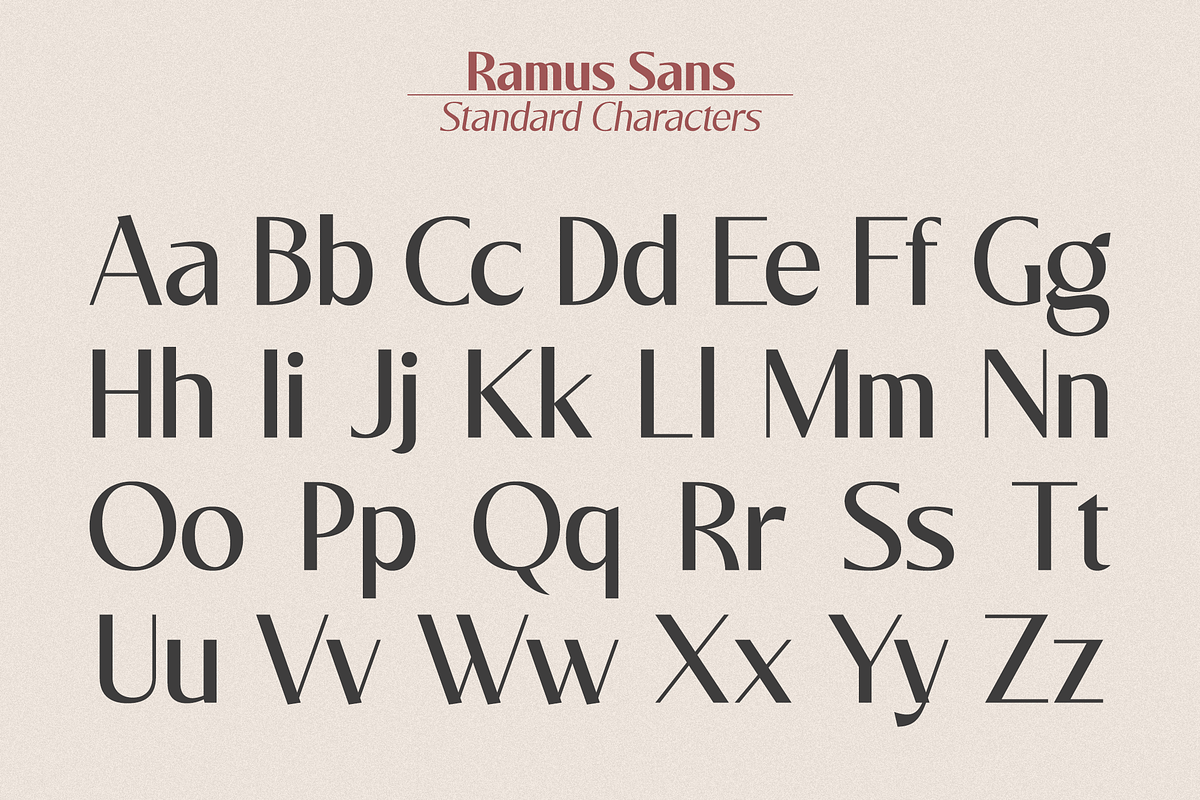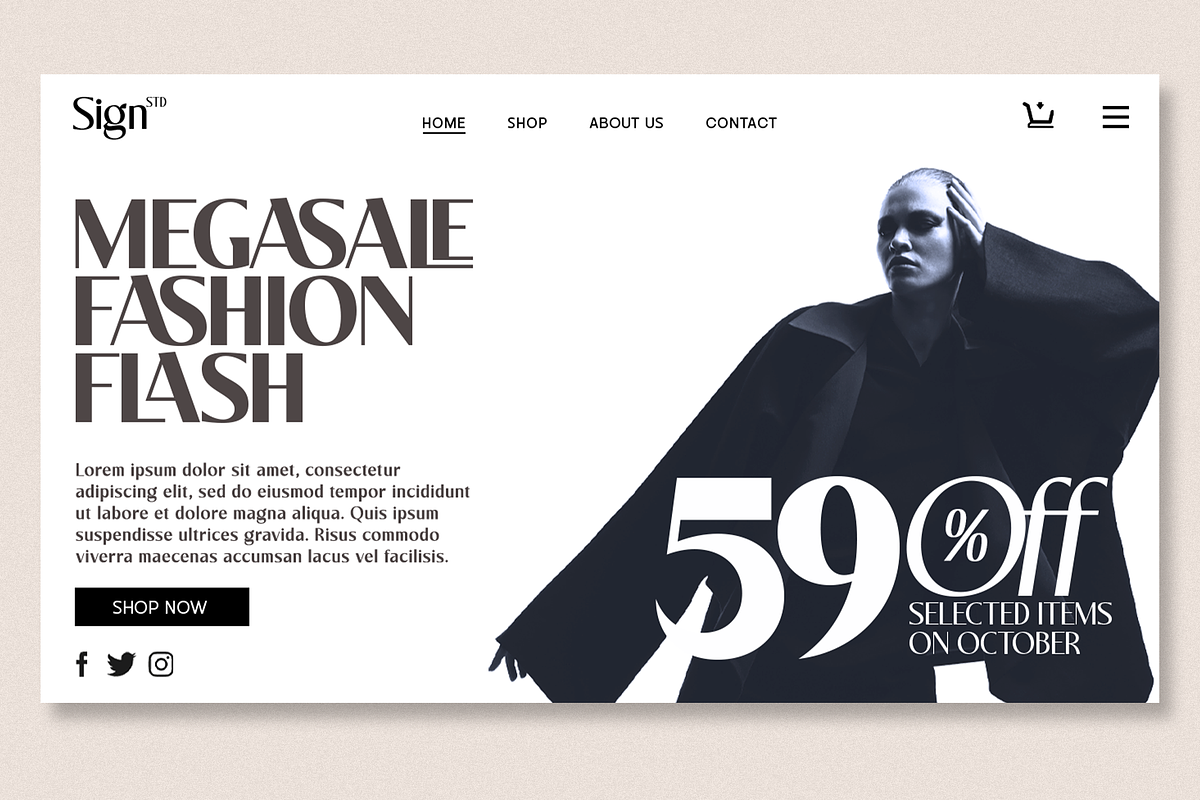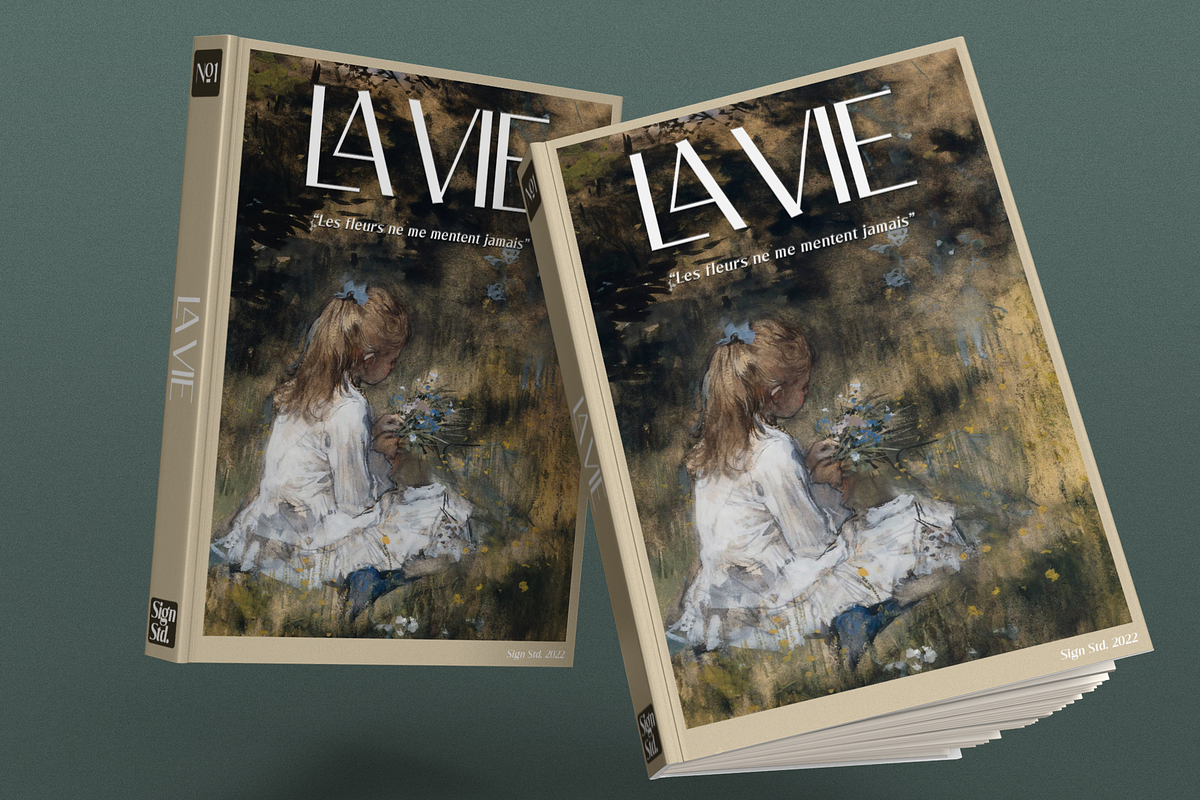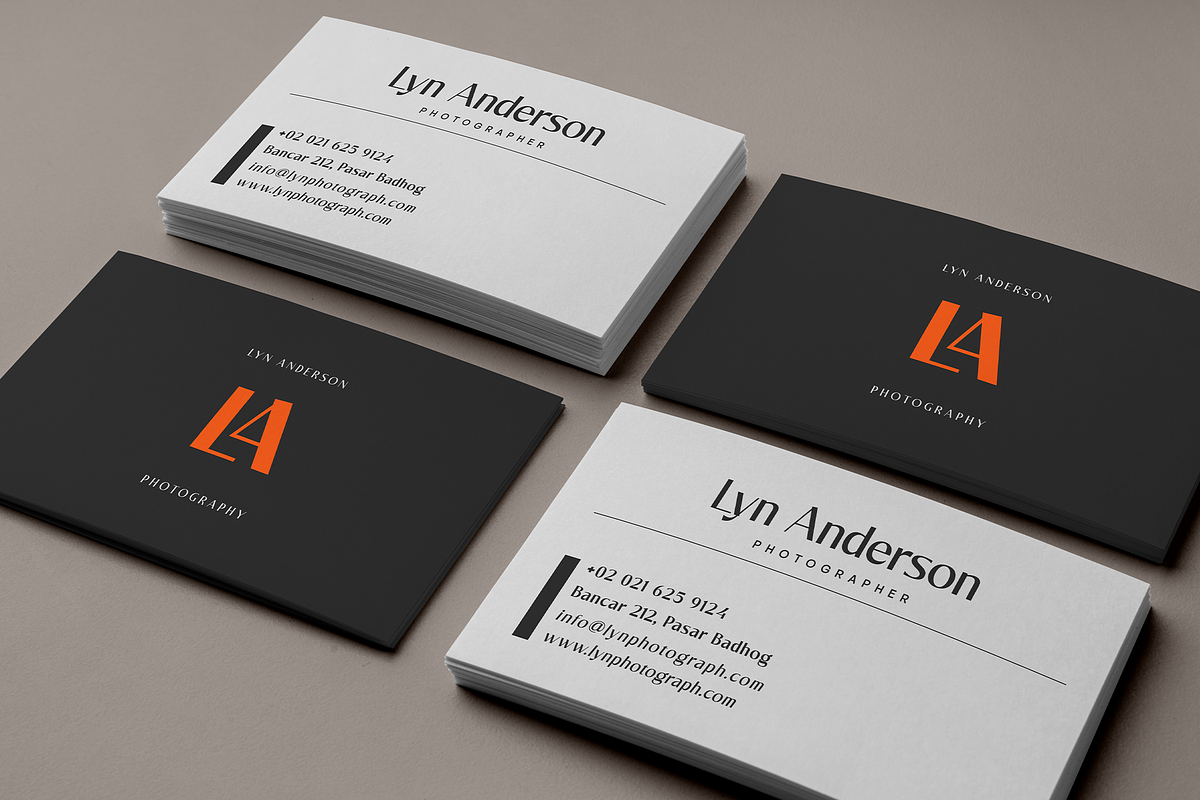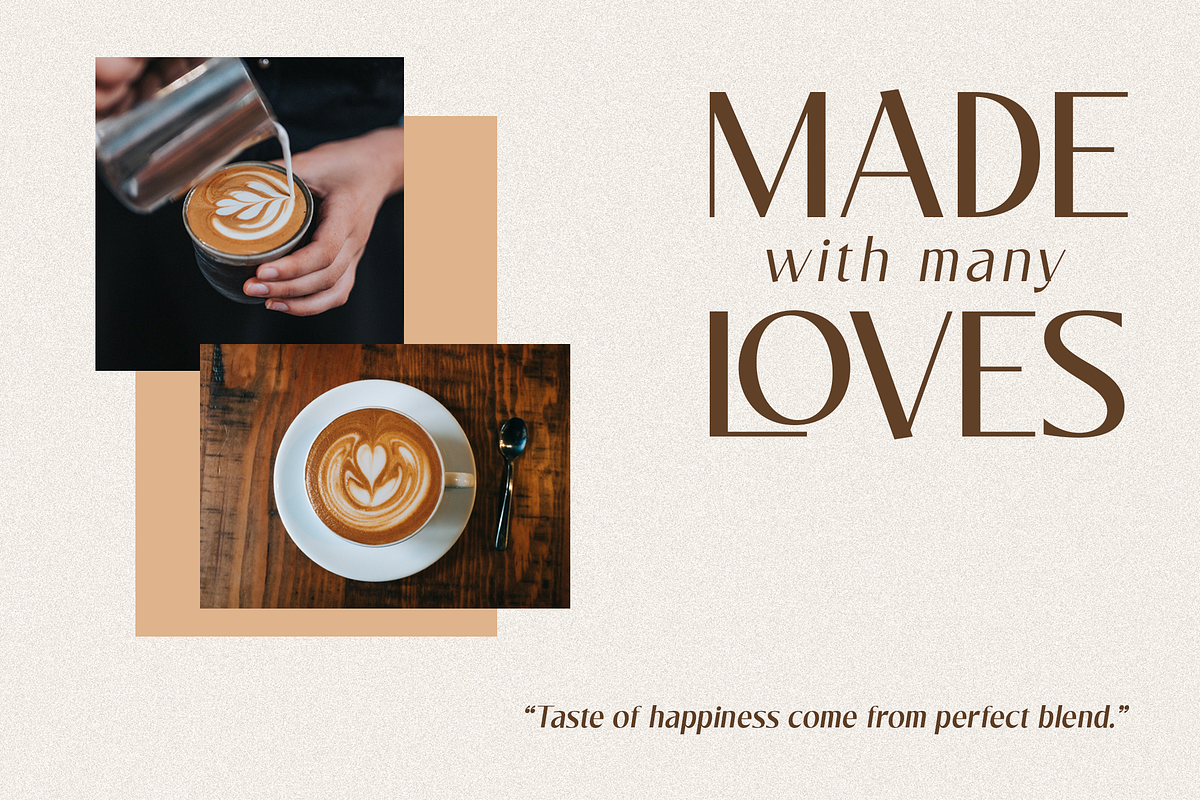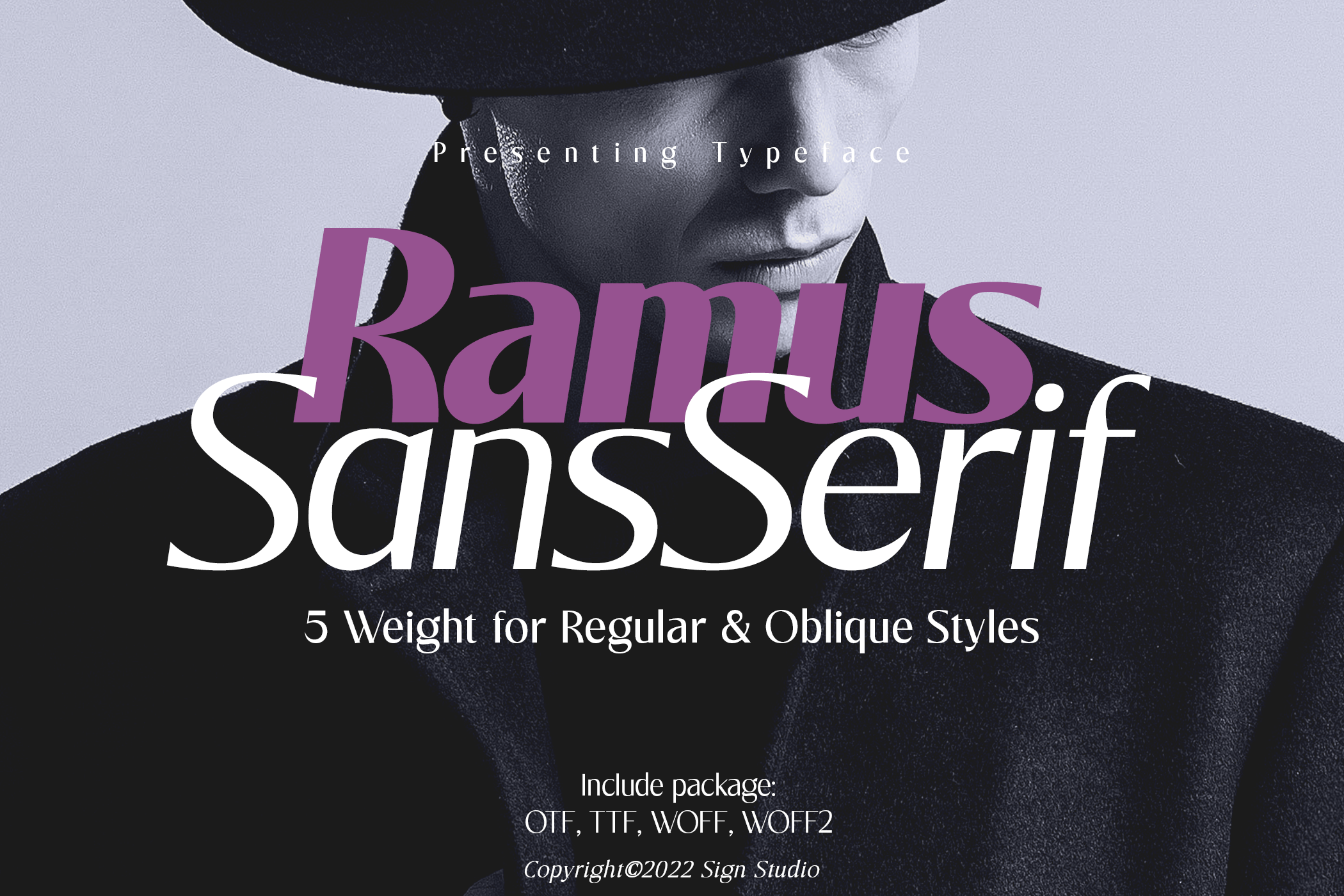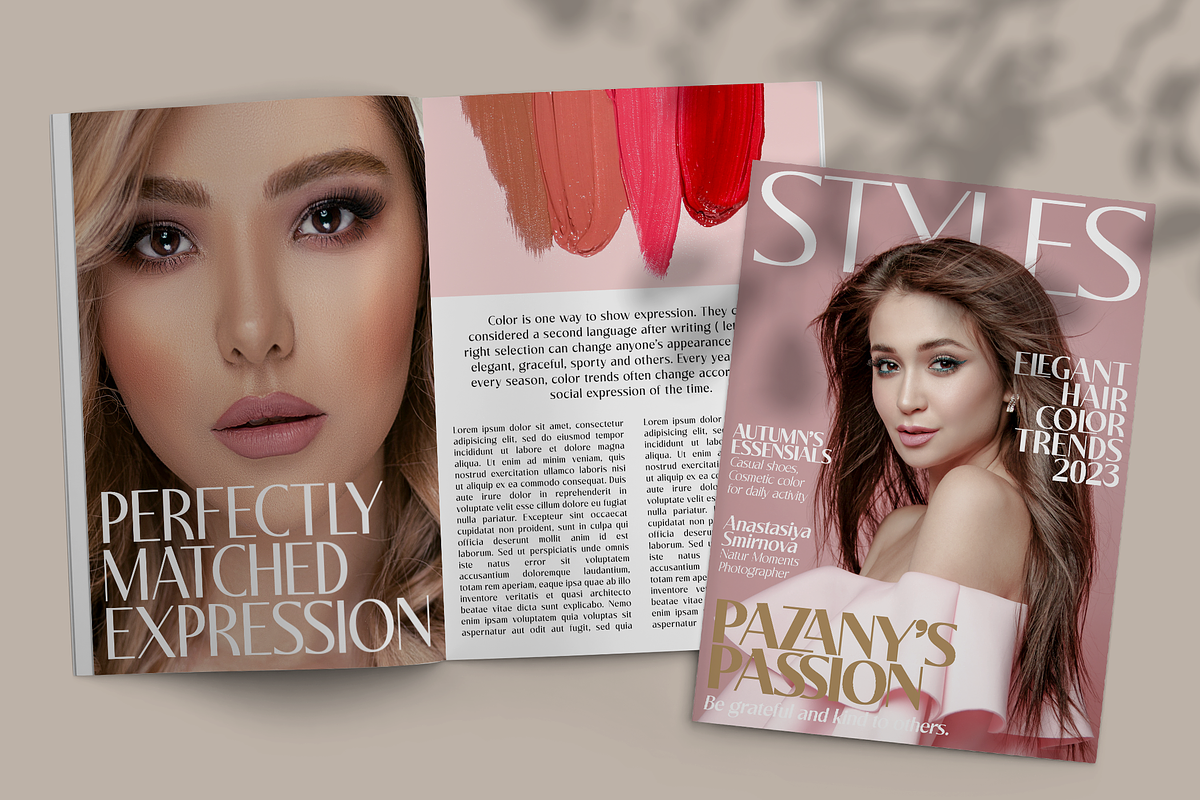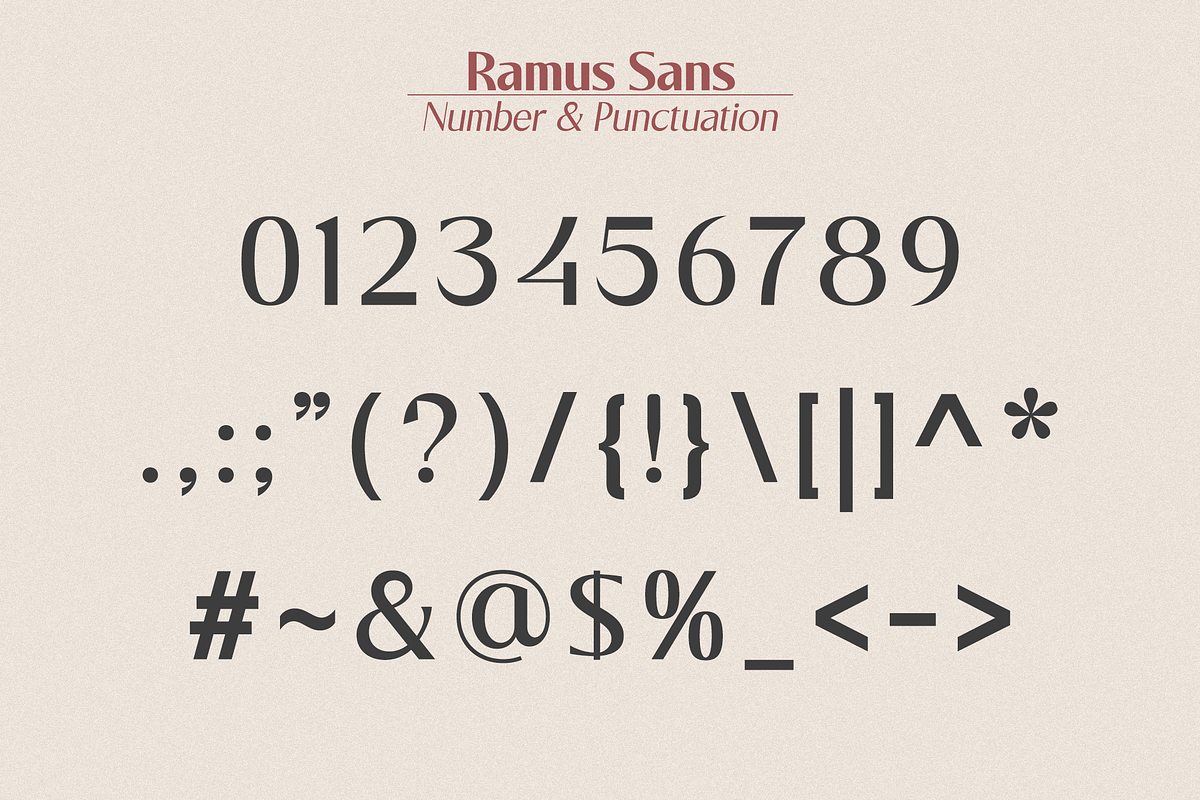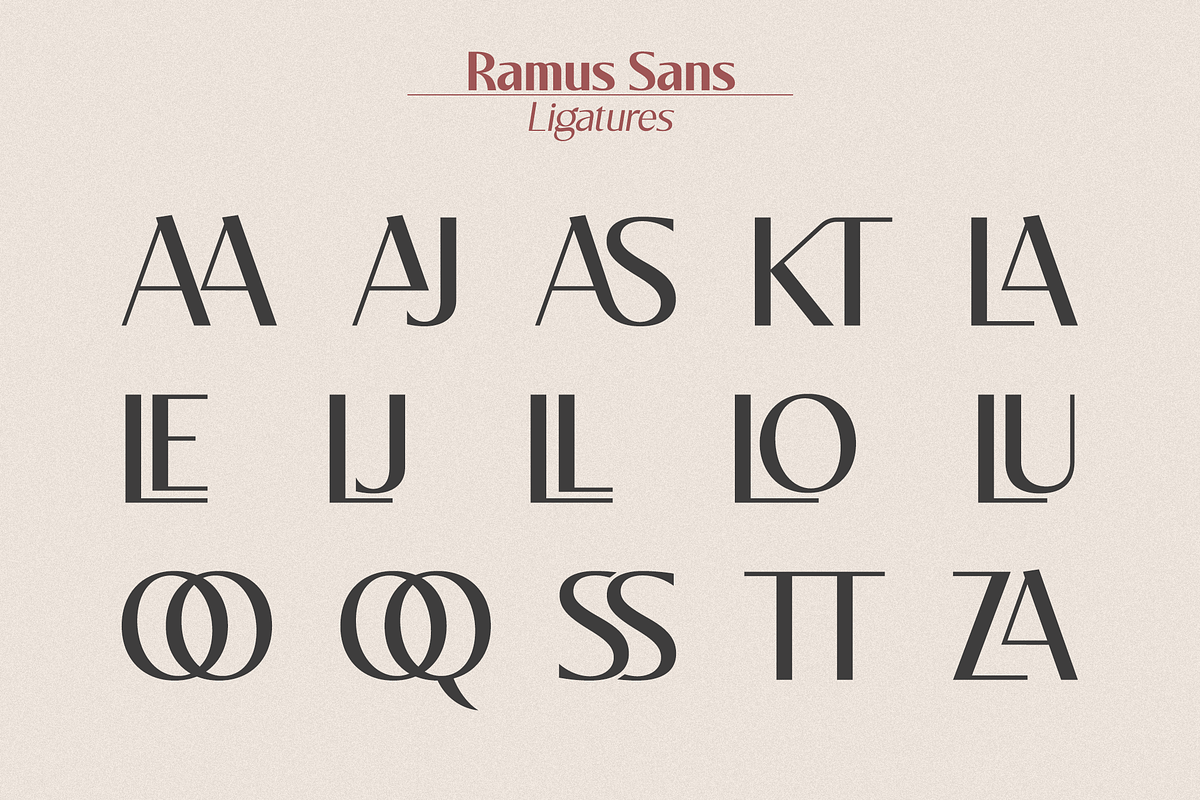
Ramus Sans - Simple Clean Font
Ramus Sans is the sans version of the Ramus (serif) family. Has an identical body but without serifs. And also some ligatures have been added to the capital letters. Like its serif predecessor, this font is available in regular and oblique styles with 5 thicknesses each. Have the ability to be a display font and writing text well. Ramus from the serif family is a very versatile font suitable for headlines, posters, logotypes, etc.